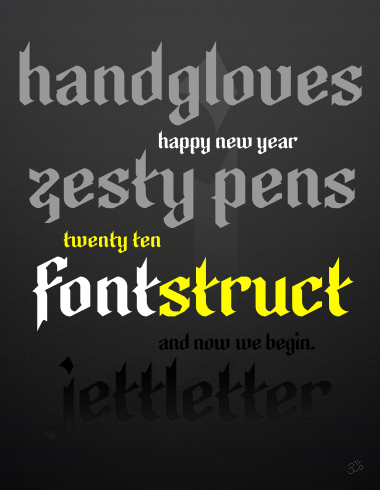
Simply amazing. I can smell the ink. 10/10
will.i.ૐ: "More to come..."
Yes, please!
Beautiful characters. Impressive use of filters too.
Wow ... I really mean that ... WOW!! Can't wait for the next installment.
Beautful work will...look forward to more.
Thank you so much all for the encouragement! This heartens me aplenty in the face of drafting the uppercase. It has been said many times before regarding the challenge of creating blackletter majuscules, but this task in particular presents no small feat.
Hmm, actually quite the opposite. It is a very, very small feat. Even while leveraging 2x2 filters and brickstacking for maximum detail with these large smooth curves, I will need every trick in the book and then some to even begin to attempt an uppercase set. And how I dearly desire not to hide behind too many gimmicky flourishes...
Wish me luck. :^) Suggestions and critiques are always welcome additions to the party!
That may be the best 'a' on fontstruct yet.
Individually each letter stands on it's own, but collectively they really sing. The way the t notches in with the s and c are terrific. And don't get me started on that k...Great job Will.
Brilliant!
I have nothing really to add other then sincere praise for this goddamn, excellent font.
A mighty 10.
Very Tasty, Will. With a flavour reminiscent of Wolfkrim's Tension.
Great consistency in form and function throughout. Beautiful k. Great solution for the x. Good luck on the uppercase. I know the feeling of the lc being easier and being unsure of pulling off the caps, but if you can't do it, no one can. Can't wait to see it. ;-)
Makes me want to start to brew my own booze so I can label it with such a cool Blackletter.
excellence strikes again.
Comment by afrojet 7th january 2010
A well deserved TP.
And a well deserved choice of Afrojet for the vacant Staff role :)
We can rest assured that Afrojet's good taste will continue the tradition of highlighting worthy work like this ... now, as the man says, where's that U/C?
Comment by p2pnut 7th january 2010
Congratulations! FontStruct Staff have deemed your FontStruction worthy of special mention. “jettletter” is now a current Featured FontStruction.
Comment by afrojet 11th january 2010
Didn't get it to work..
Got rm_almanack_old to work but not this jettletter! all letters looks like something like this [F][F]..
Comment by aeqproductions 27th february 2010
@aeqproductions: I may have the solution to your problem with this font. Another FontStruct member had similar trouble with one of my fonts. I think it's because this one contains no uppercase glyphs, while mine had no lowercase (until today). There are some situations in which all missing characters are represented by the F from the FontStruct logo. Could that be what's happening to you?
Comment by fontcollector 1st march 2010
@aeqproductions: fontcollector is right. Still just lowercase in the public release.
A few breakthroughs (which I look forward to sharing) have helped me crack some of the tougher glyphs, but I still have miles and miles to go. Indeed, I may need all your help to finish the set. Certainly, I will need your input and critiques to improve the final result.
Love it
Clean lines!
how do you make these things in the fontstructor they are legit crazy